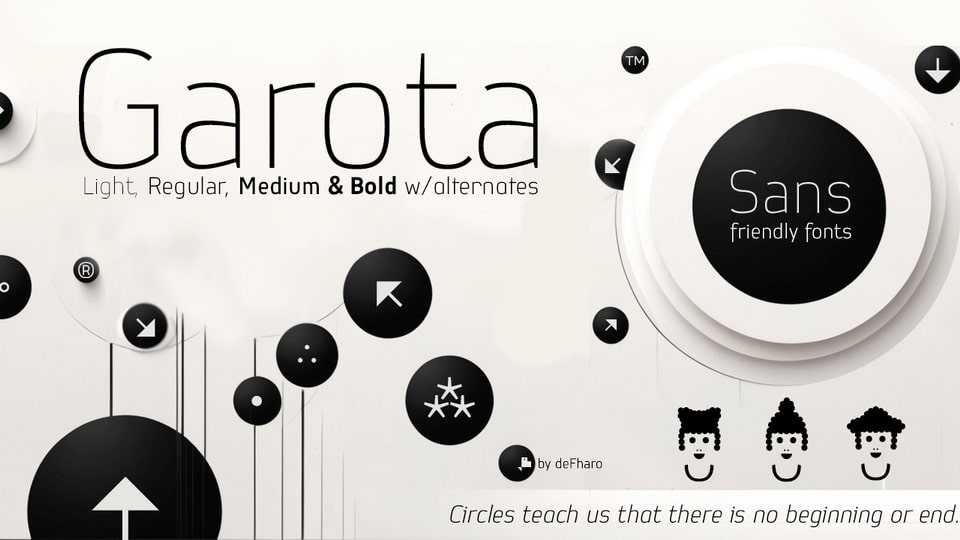
Download Garota Sans font, a sans serif typeface distinguished by its slightly narrow proportions and generous metrics. Every detail has been carefully adjusted to ensure a smooth and clear reading experience.
Designer: Fernando Haro